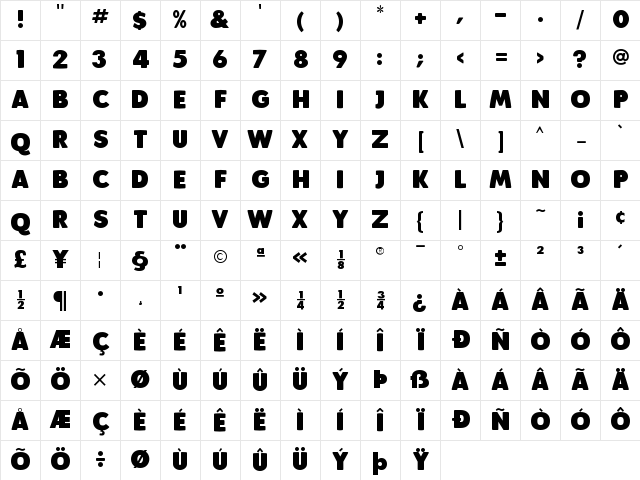
Plump Black Free Font
Plump Black
Complete Plump Black glyph index. Displaying only characters natively supported by Plump Black font.
Design Context for Plump
Plump is a composed and adaptable typeface that performs quietly and consistently across a wide range of design contexts.